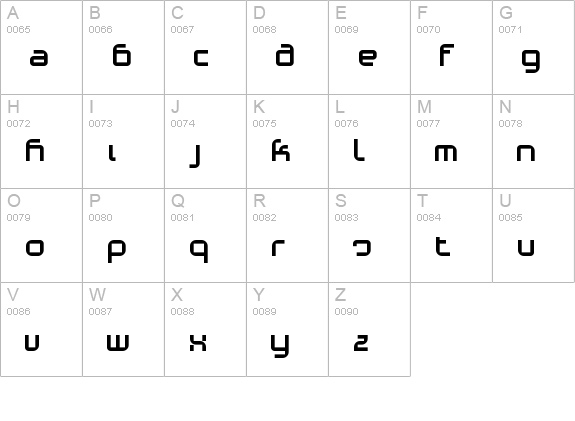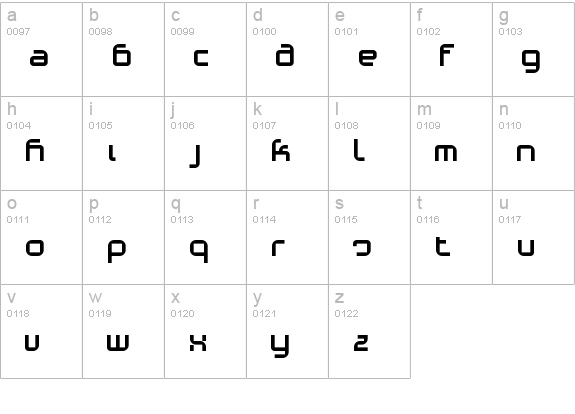
Phino (Variation) Font Details
Introducing Phino (Variation), a stunning and versatile font that is sure to elevate your design projects to new heights. This unique typeface effortlessly combines elegance with a touch of playfulness, making it perfect for a wide range of creative endeavors. Phino (Variation) boasts a distinct and captivating style, with its beautifully crafted letterforms and carefully balanced proportions. Each character is exquisitely detailed, showcasing the meticulous craftsmanship that went into its creation. This font offers a wide variety of styles and variations, allowing you to experiment and find the perfect fit for your design needs. From bold and impactful headlines to delicate and refined body text, Phino (Variation) has you covered. What makes Phino (Variation) even more exceptional is that it is completely free. Yes, you read that right! This incredible font is available for free download exclusively at FontsMarket.com. Now, you can enjoy the beauty and versatility of Phino (Variation) without breaking the bank. Whether you're a professional designer or a passionate hobbyist, Phino (Variation) is a must-have addition to your font collection. Its versatility, elegance, and affordability make it a top choice for any project, from branding and advertising to invitations and social media graphics. So why wait? Discover the endless possibilities that Phino (Variation) has to offer and download it for free at FontsMarket.com today. Unleash your creativity and watch your designs come to life with this remarkable font.